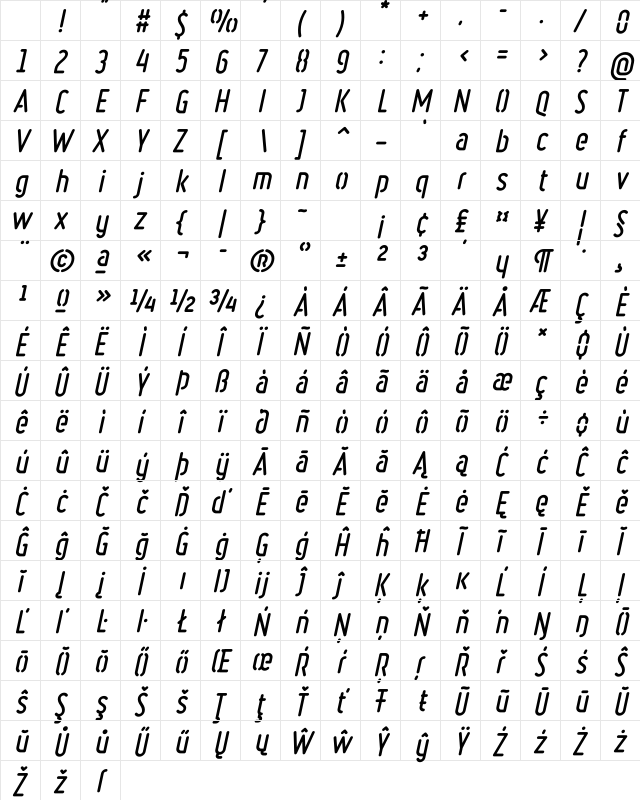
Complete Ruler Stencil Bold Italic glyph index. Displaying only characters natively supported by Ruler Stencil Bold Italic font.
Ruler Stencil borrows the utilitarian aesthetic of stencil lettering, with its characteristic cutaways and no-frills construction lending an industrial edge. The slanted form adds forward momentum and visual energy. Its bold stroke weight gives it real presence on the page.
Pro Tip: Use Ruler Stencil at large sizes on packaging, posters, or apparel where the stencil cutaways read clearly. Avoid small sizes where those gaps become visual noise.